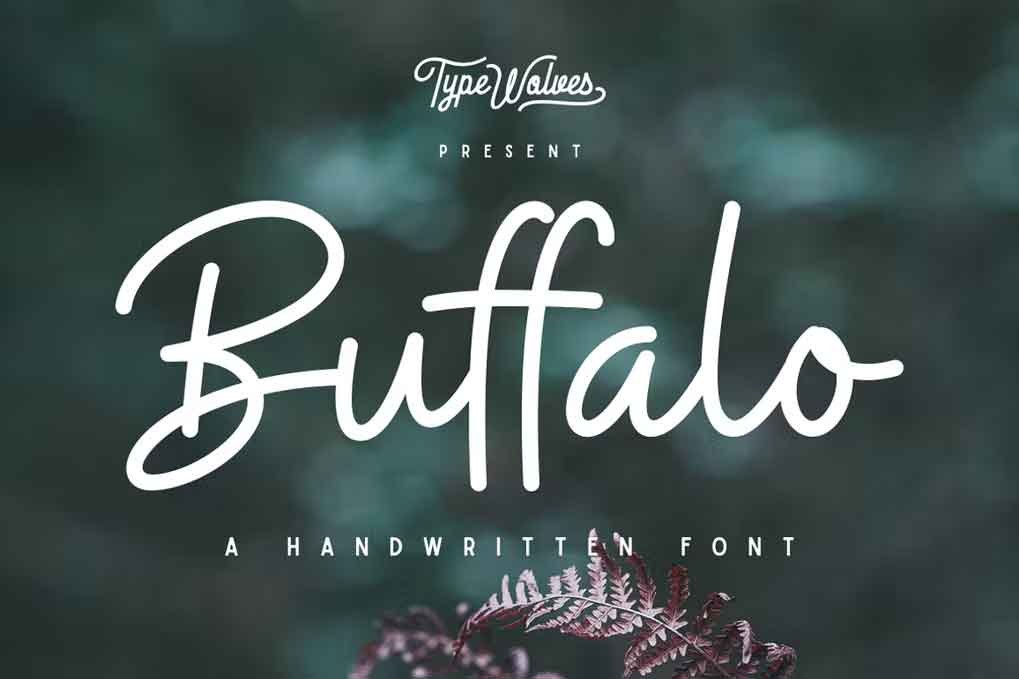
Buffalo Font
Hi, Buffalo have an alternate character from a-z, this font is very easy and simple for purposes of your design project. Buffalo have two sets of lowercase letters, uppercase letters, punctuation, numbers, and multilingual.
Buffalo perfect for greeting cards, magazine, branding, social media, print, packaging, and many more.
Where Buffalo Font works best
A short phrase in Buffalo Font carries warmth that a typeset sans cannot fake; keep the rest of the card plain.
Chalkboard-style headings in Buffalo Font make a menu feel hand-made. Keep the dish descriptions in a simple face so prices stay readable.
One line of Buffalo Font over a photo is enough; the script carries the tone and the caption does the work.
What kind of work does Buffalo Font suit?
It sits in the Script And Handwritten group and reads as branding, packaging, script, script and handwritten. That makes it a candidate wherever those qualities help: headings, packaging, social graphics and brand work. Set it at the size you plan to use before deciding.